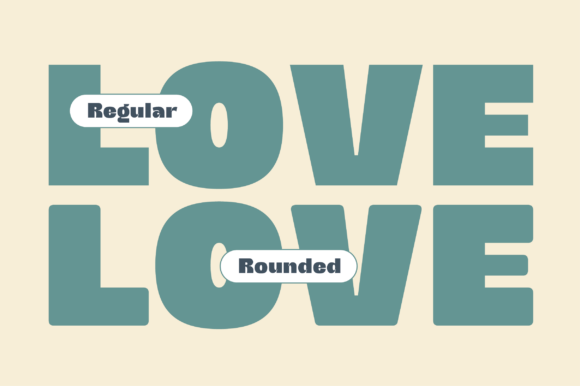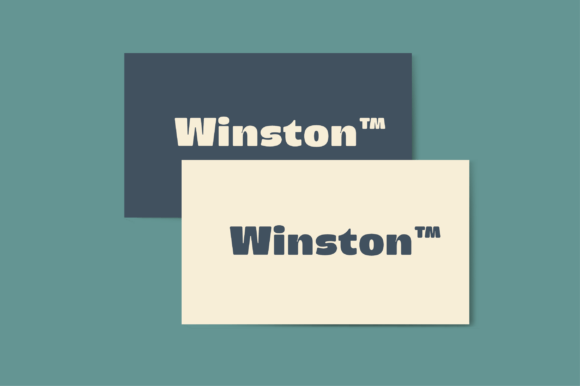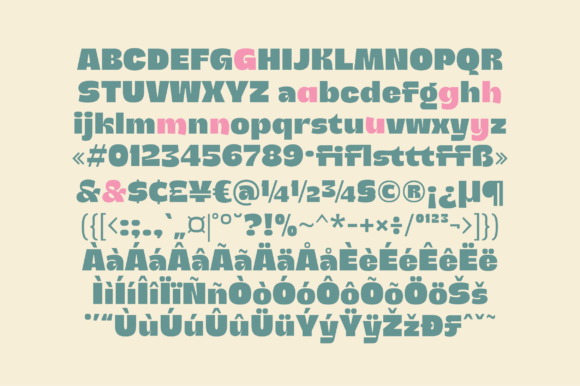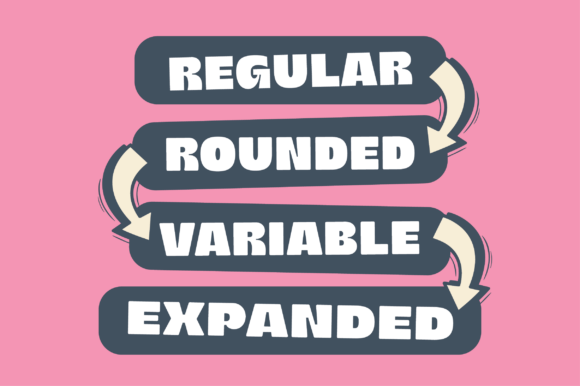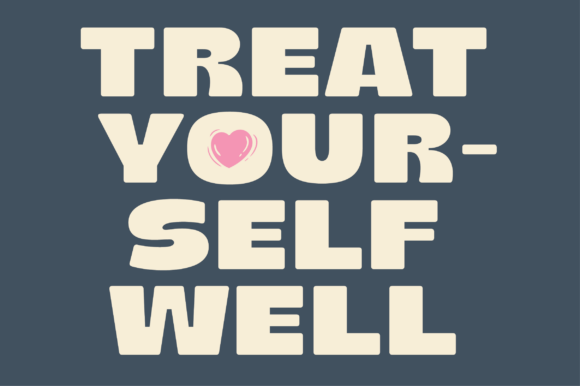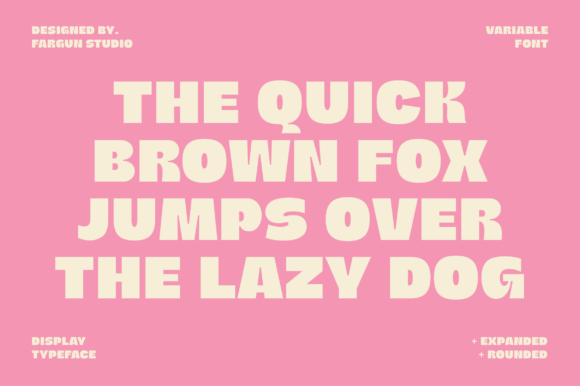
Introducing Chaster Font: The Ultimate Modern Display Typeface
In the world of typography, a good font can make all the difference in the success of a design project. If you’re a designer or crafter looking for a bold and modern display typeface that can help your work stand out, look no further than Chaster Font. This versatile and stylish font is perfect for a wide range of applications, from logos and posters to packaging and branding.
What Makes Chaster Font So Special?
Chaster Font is a rounded bold and modern display typeface that features characters that stand out from every background. Its unique design makes it perfect for grabbing attention and making a lasting impression. Whether you’re working on a cool and creative project or a more serious and professional one, Chaster Font is sure to deliver.
Multilingual Support for Global Designers
One of the key benefits of Chaster Font is its multilingual support. This means that designers from all over the world can use the font to create projects in their native language, without worrying about character limitations. Whether you’re working on a project in English, Spanish, French, or any other language, Chaster Font has got you covered.
Chaster Font is an incredibly versatile typeface that can be used for a wide range of projects. Some of the most popular uses for the font include:
- Logos: Create a bold and memorable logo that stands out from the competition.
- Posters: Design eye-catching posters that grab attention and communicate your message effectively.
- Packaging: Add a touch of style and sophistication to your product packaging.
- Branding: Create a consistent brand identity that reflects your values and personality.
- Invitations: Design cool and stylish invitations that set the tone for your event.
Variable Font with 3 Font Styles
Chaster Font is a variable font that comes with three font styles: regular, rounded, and expanded. This allows you to experiment with different looks and feels, to find the perfect fit for your project. Whether you’re looking for a bold and dramatic font or a more subtle and understated one, Chaster Font has got you covered.
Key Features of Chaster Font
- Rounded bold and modern display typeface
- Multilingual language support
- Variable font with 3 font styles: regular, rounded, and expanded
- Perfect for logos, posters, packaging, branding, and more
Why Choose Chaster Font?
There are many great fonts out there, but Chaster Font stands out from the crowd. Here are just a few reasons why you should consider choosing Chaster Font for your next project:
- Unique and stylish design
- Multilingual support
- Versatile and adaptable
- Perfect for a wide range of projects